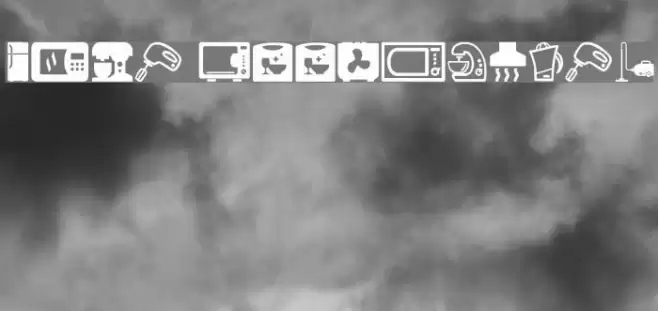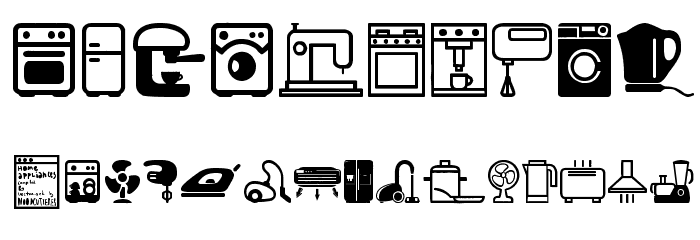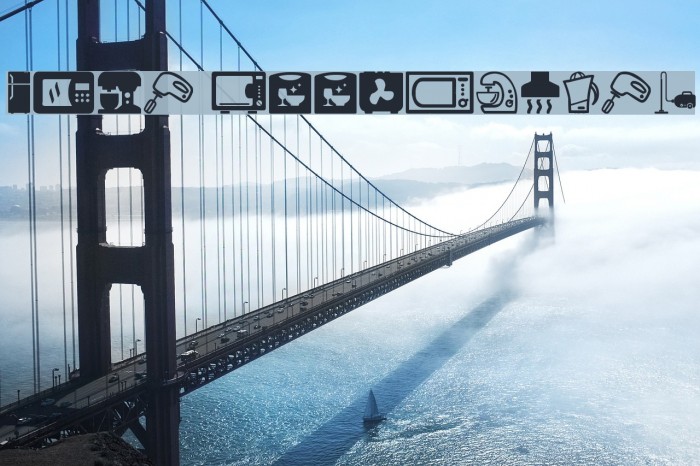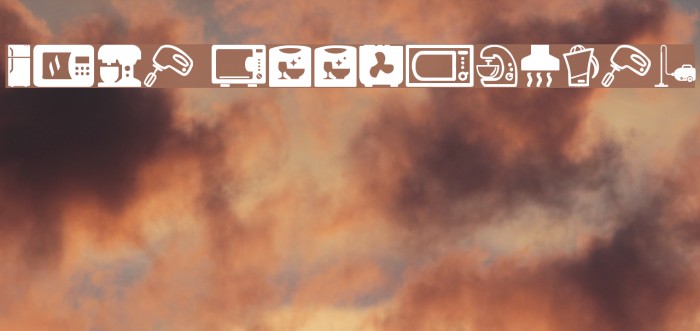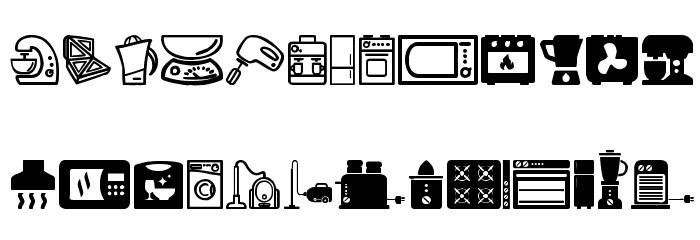
Home Appliances Font
Home Appliances Description
A decorative dingbat font featuring a variety of home appliance icons, including kitchen gadgets, cleaning devices, and electronic equipment, all rendered in a bold, high-contrast silhouette style with simplified details for easy recognition.
Icon-based font with bold home appliance silhouettes from Uncategorized fonts.
- Proposed Projects: Infographics, instruction manuals, appliance catalogs, educational materials, signage, and UI icon sets.
- Overall Style: Decorative, Modern
- Use Case: Icons, Infographics, Signage, UI elements